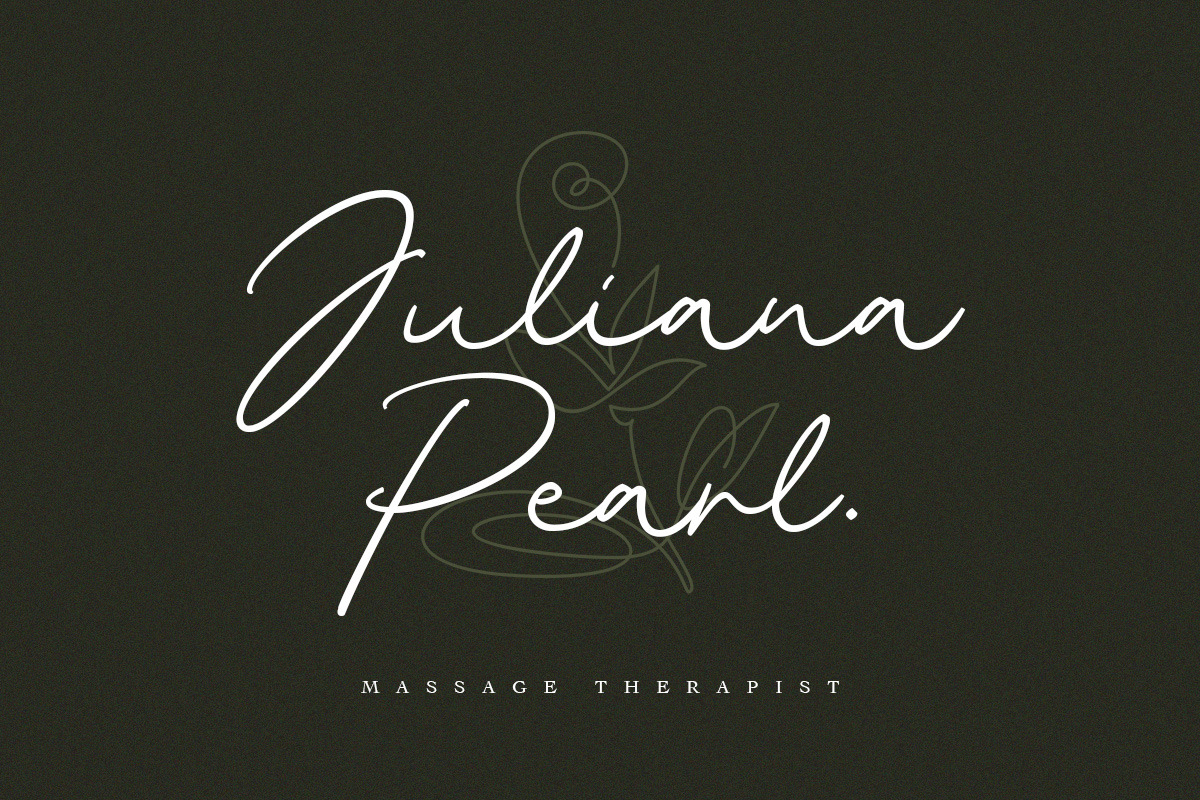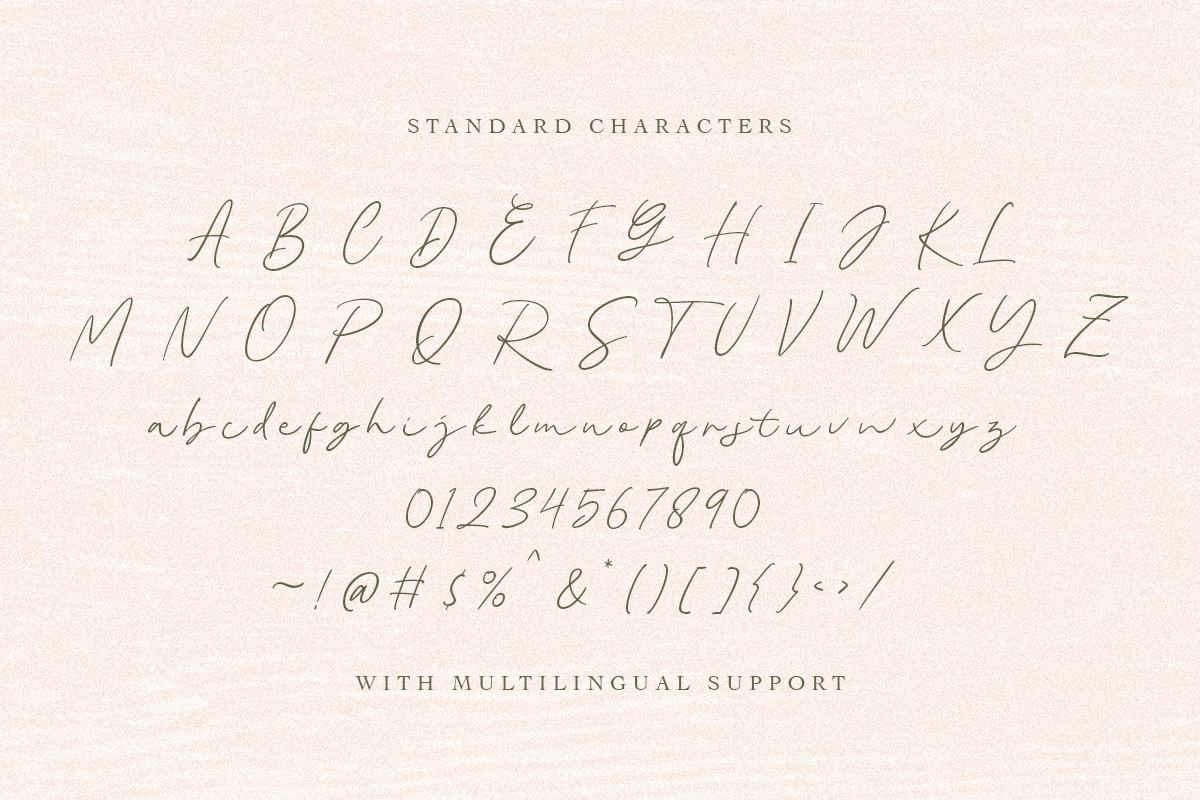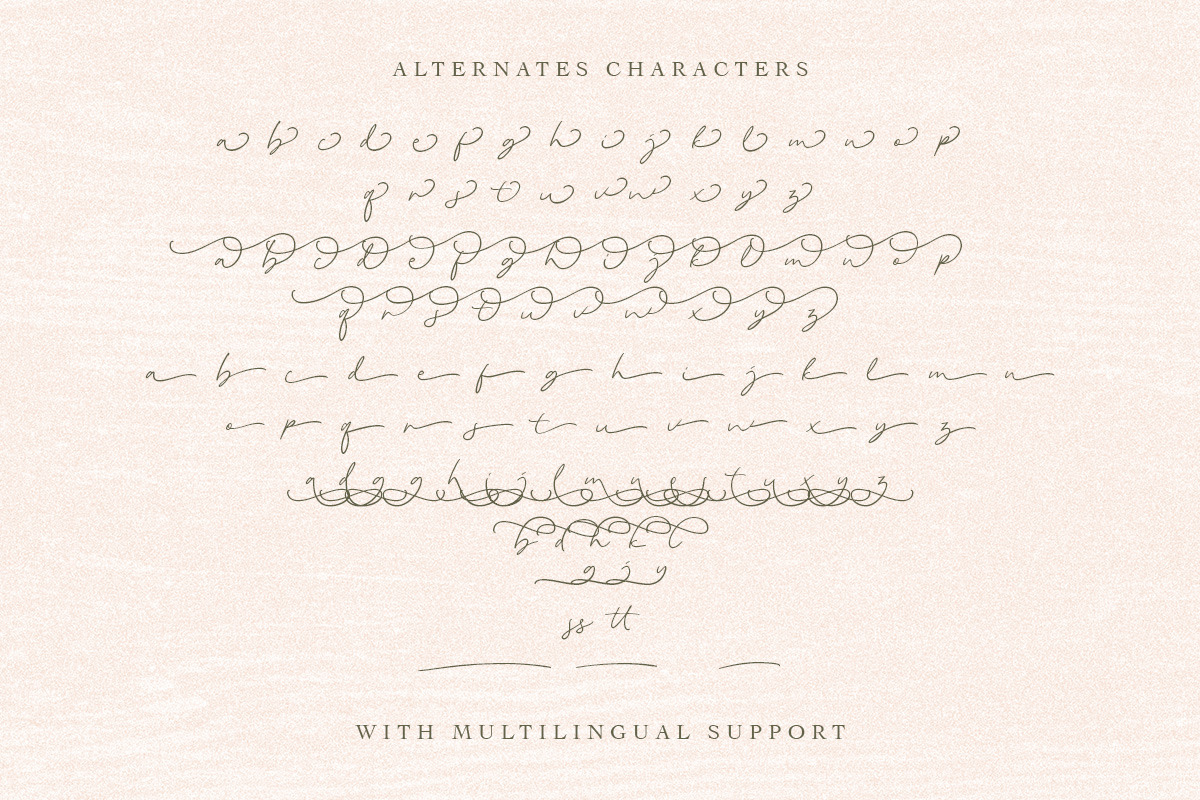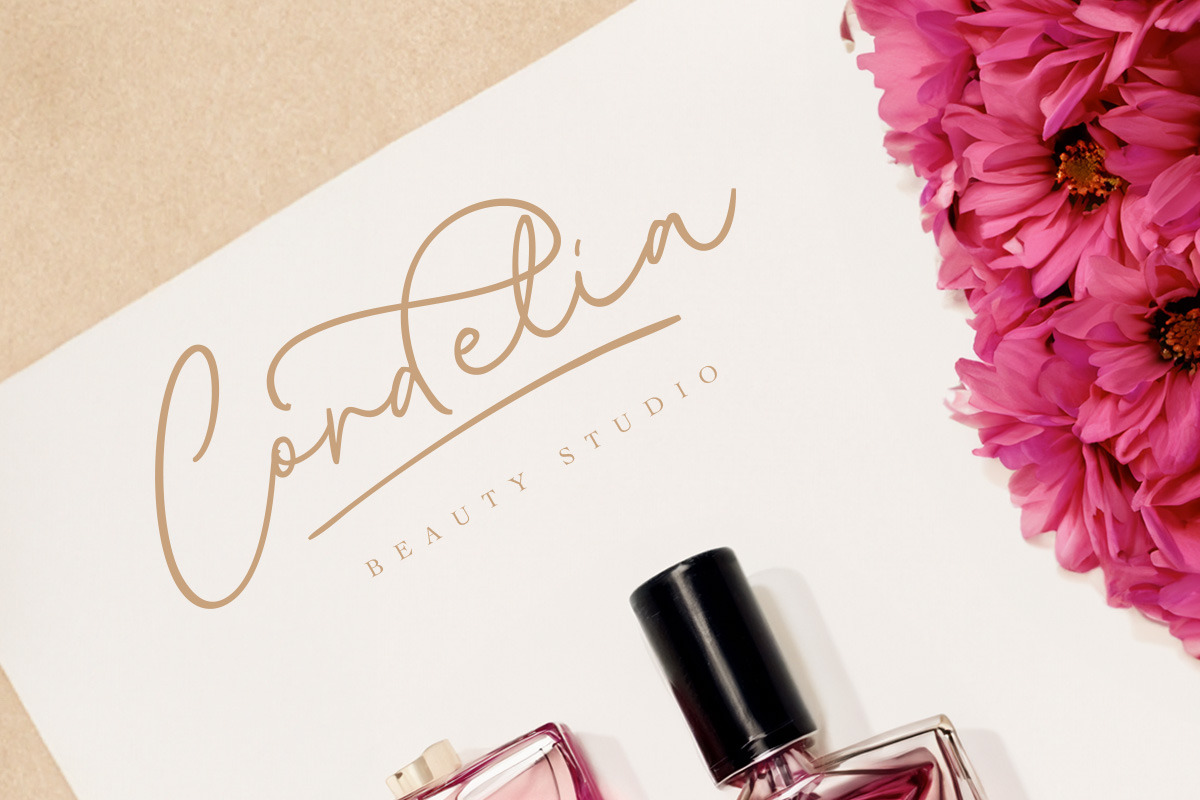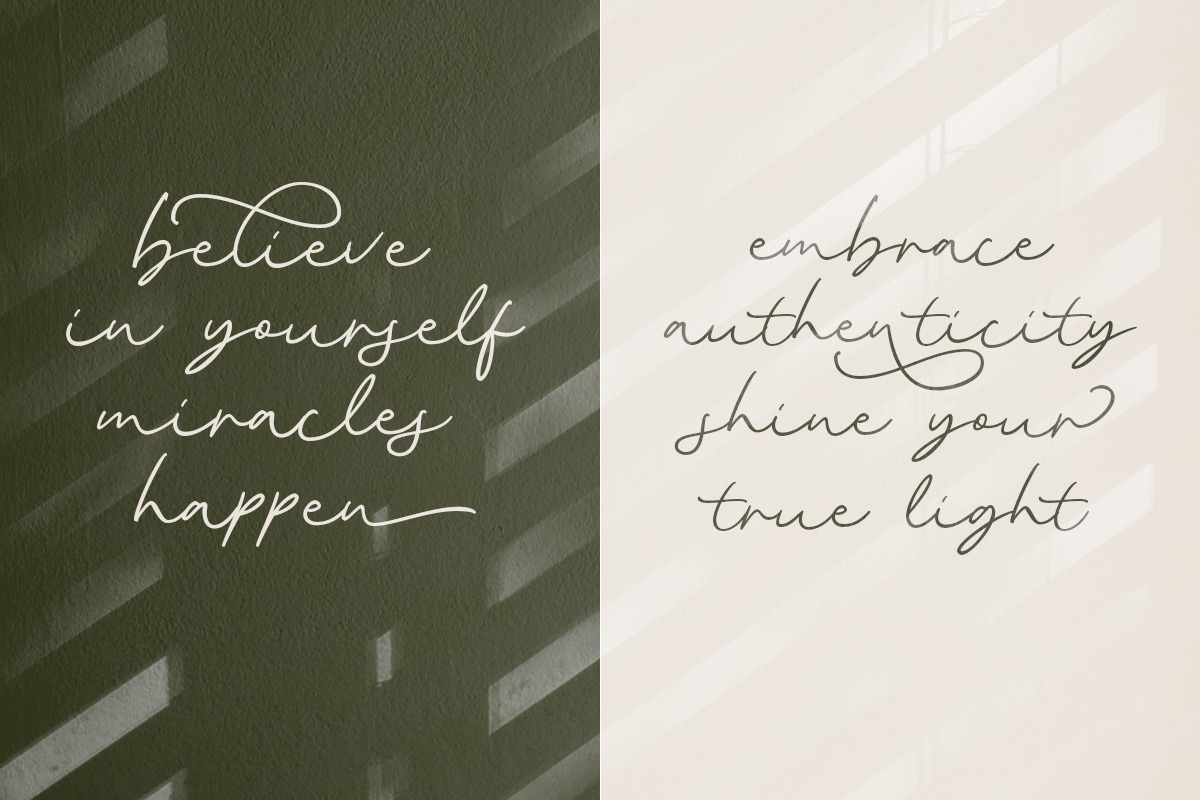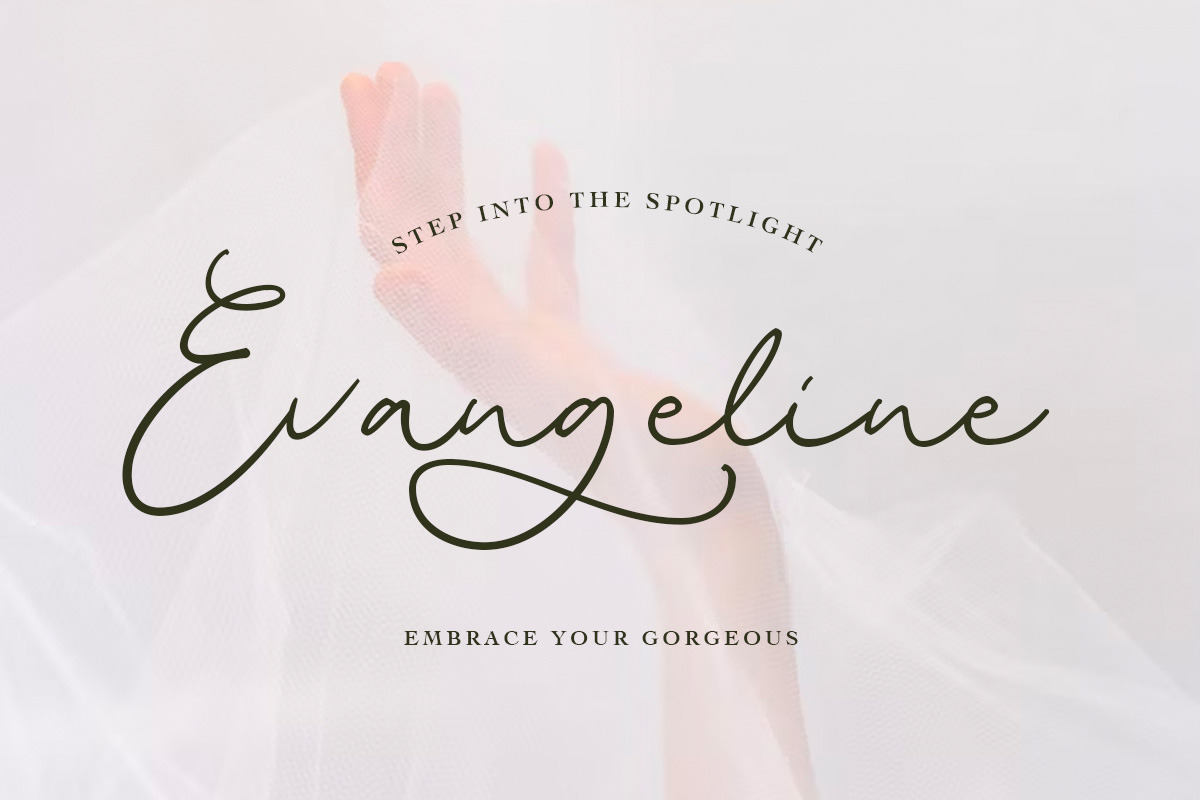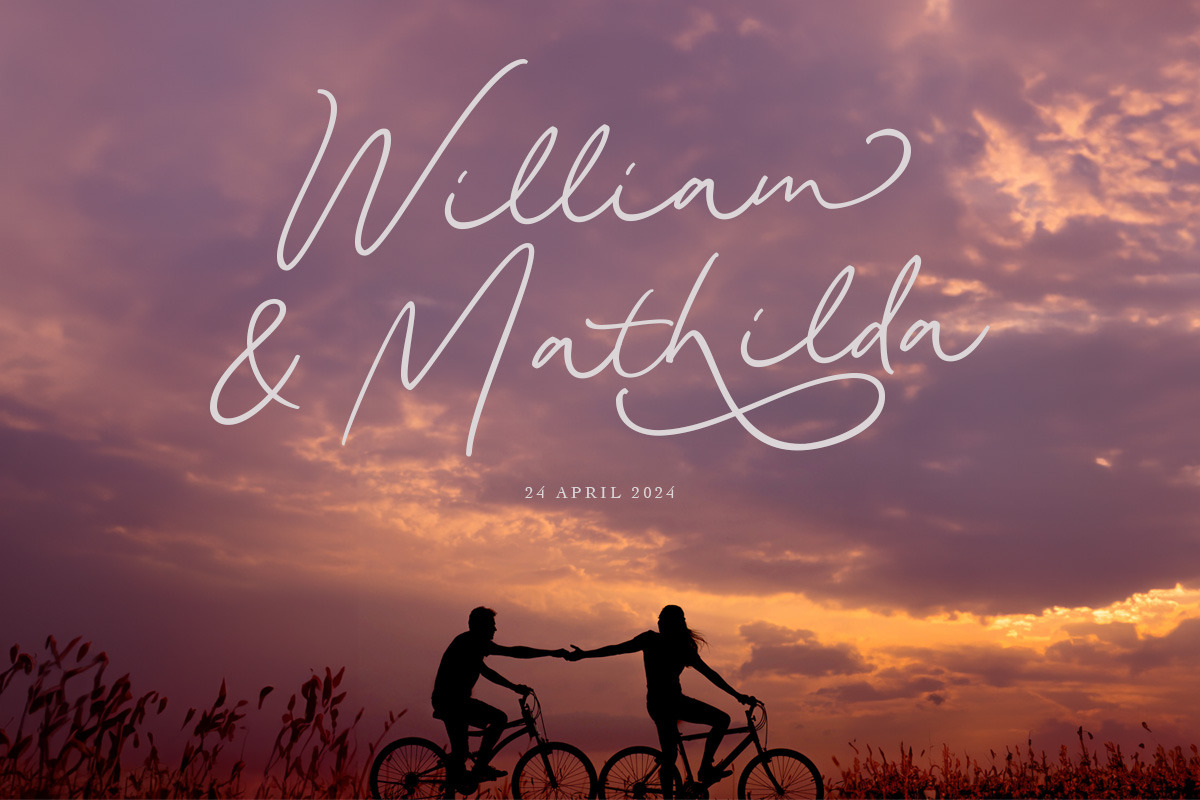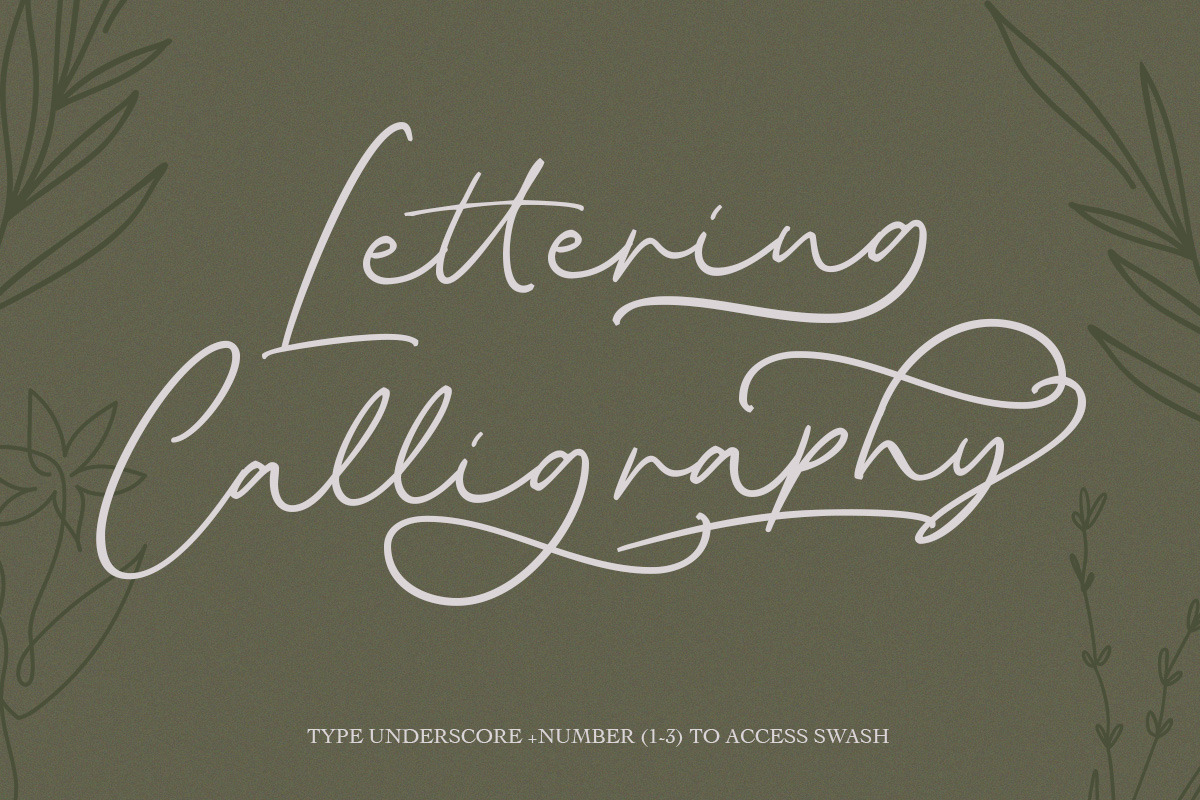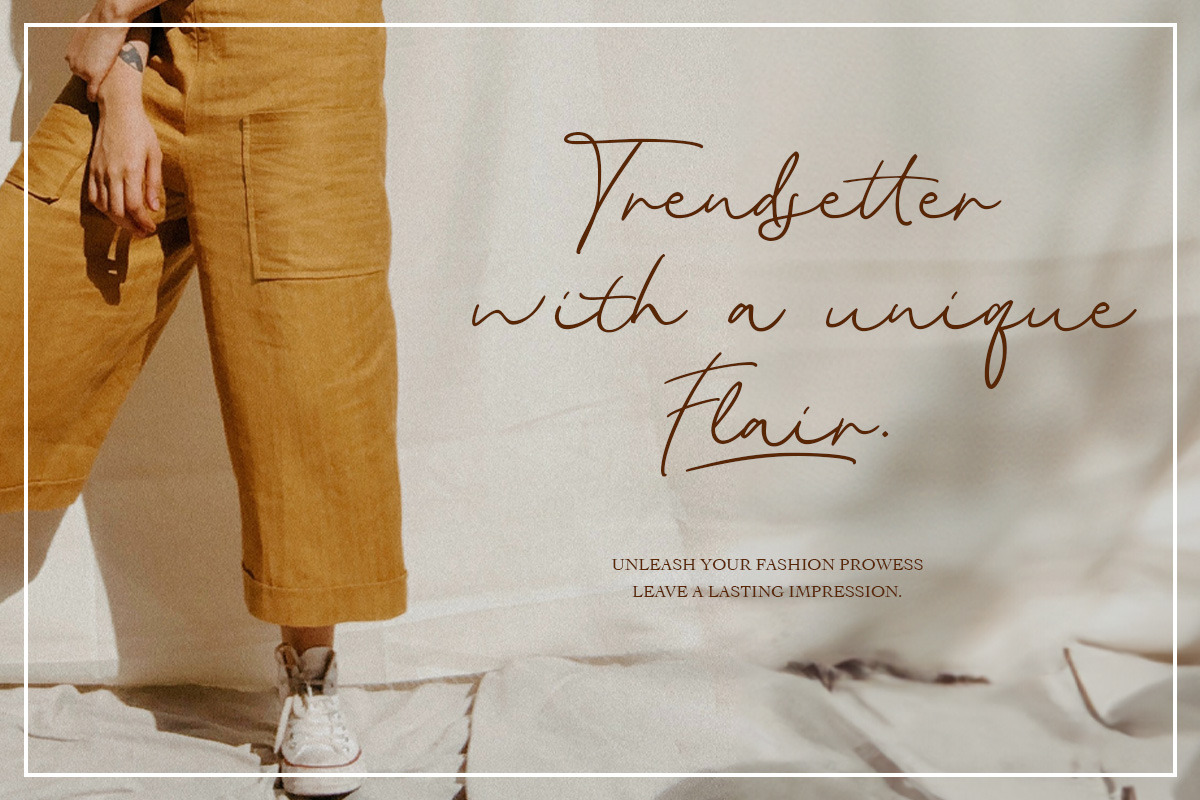
Penelope Grace - Signature Script
Penelope Grace is a beautiful signature script with chic lookwith natural signature style. This type of font perfectly made to be applied especially in logo, and the other various formal forms such as invitations, labels, logos, magazines, books, greeting / wedding cards, packaging, fashion, make up, stationery, novels, labels or any type of advertising purpose.